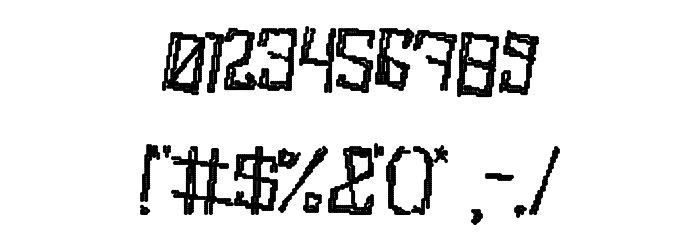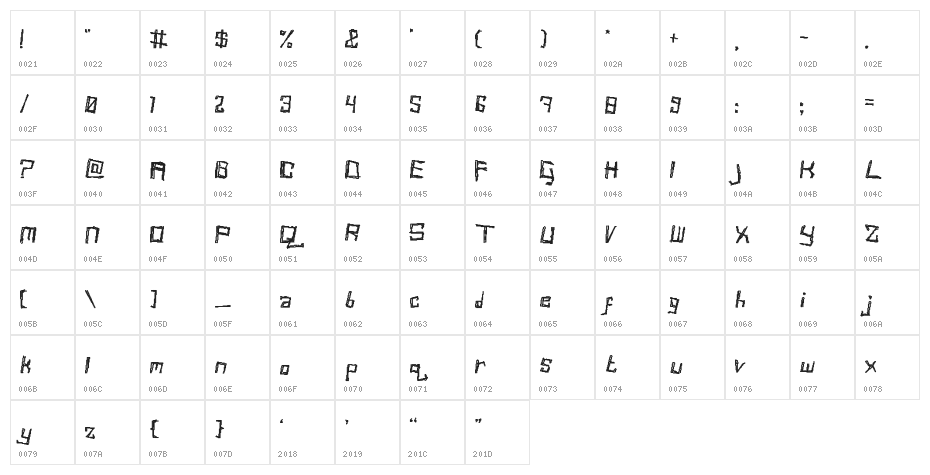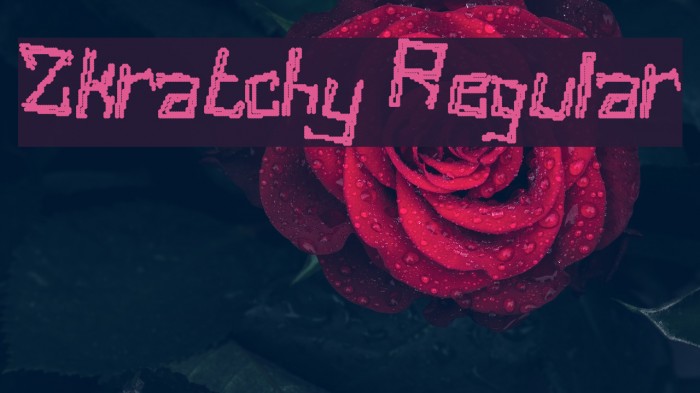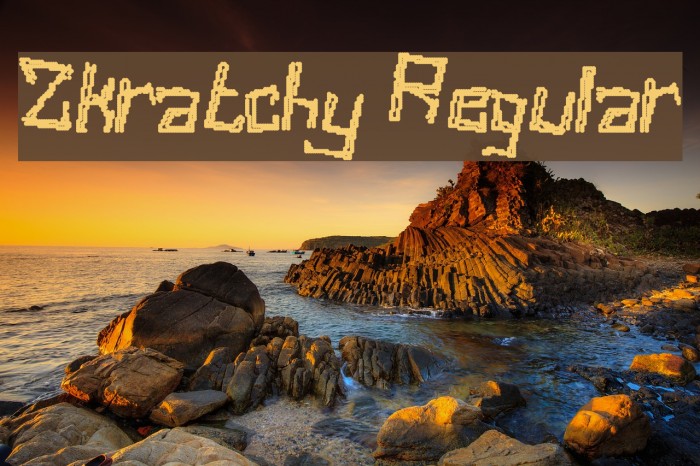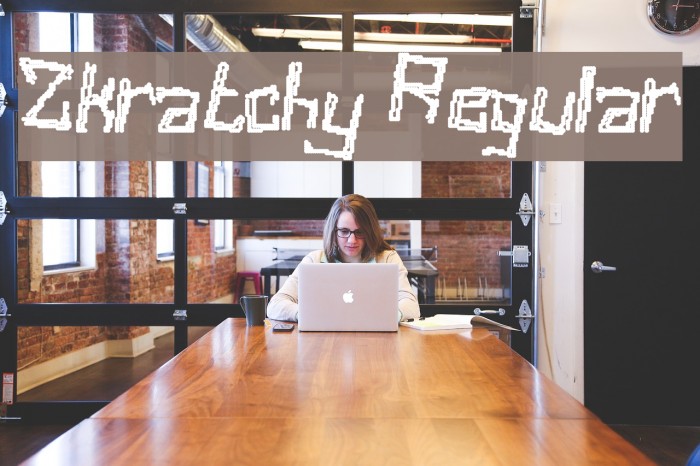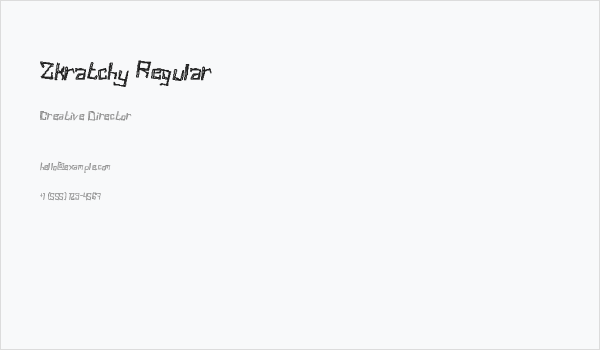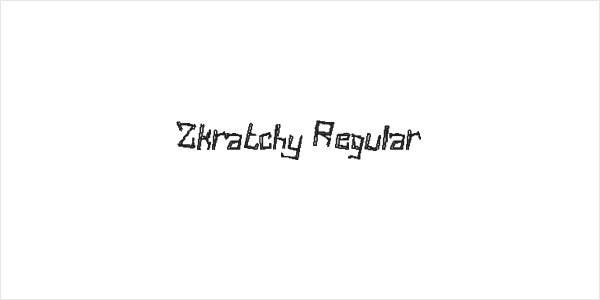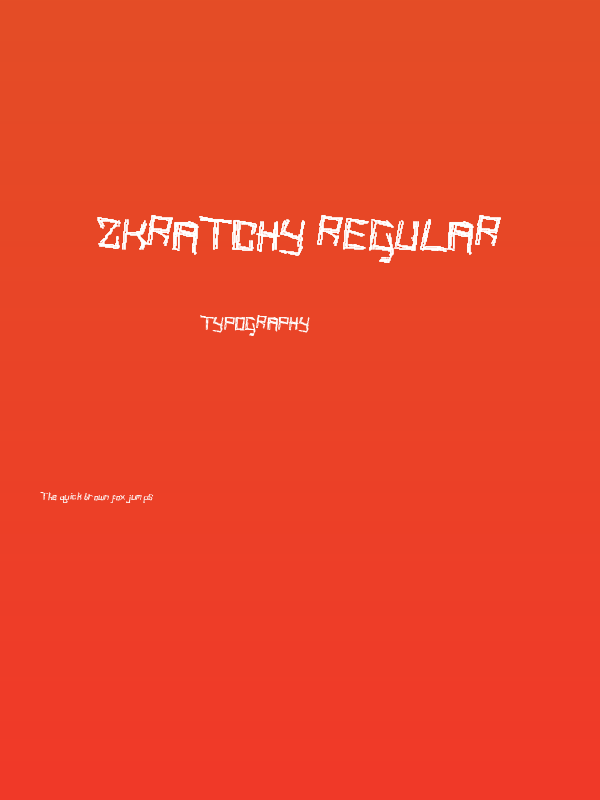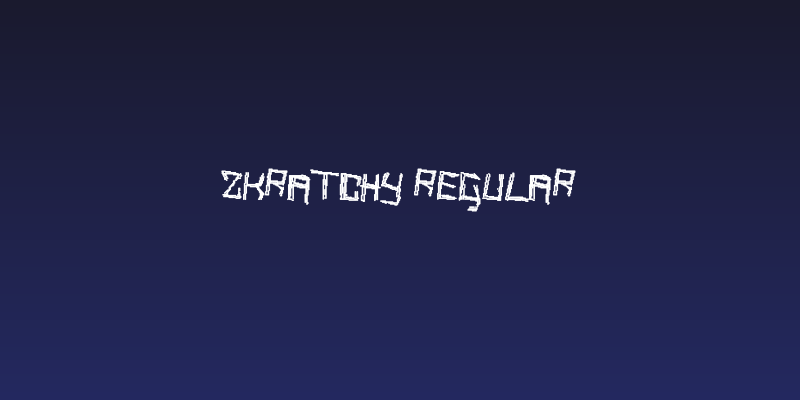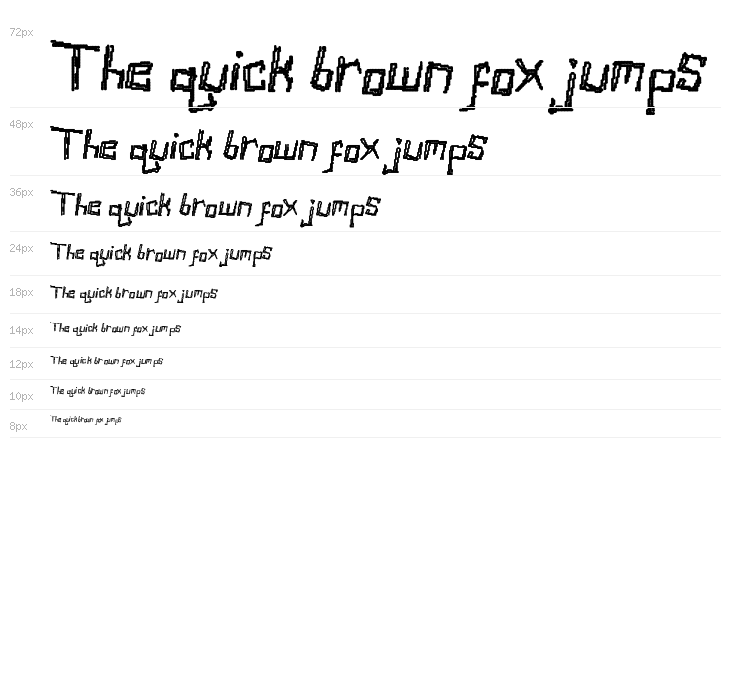
Zkratchy Regular Font
Zkratchy Regular Description
This font features a unique, hand-drawn style with a rough, sketch-like appearance. The characters are irregular and slightly distorted, giving them a playful and artistic vibe. The uppercase and lowercase letters maintain a consistent style, with jagged edges and uneven lines that create a sense of movement and energy. The numbers and special characters follow the same design principles, ensuring a cohesive look across all elements. This font is ideal for projects that require a creative and informal touch, such as children's book covers, artistic posters, or quirky branding materials.
| Overall Style | Artistic, Playful |
| Use Case | Headlines, Artistic projects, Informal branding |
| Proposed Projects | Ideal for children's book covers, artistic posters, and quirky branding materials. |